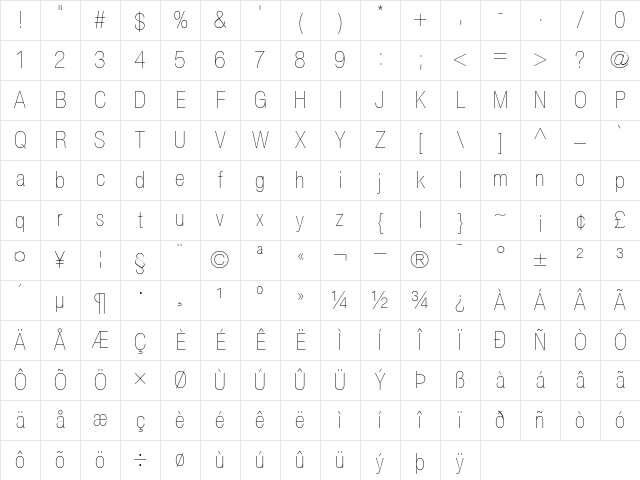
Helvetica27-CondensedUltraLight Ultra Light
Design Context for Helvetica27-CondensedUltraLight
Helvetica27-CondensedUltraLight is a composed and adaptable typeface that performs quietly and consistently across a wide range of design contexts. Its slender proportions lend an understated elegance to any composition. Its narrow stance lets it pack a punch even in space-constrained designs.
Pro Tip: Use Helvetica27-CondensedUltraLight in both headline and body roles to test its range before committing to a single application.